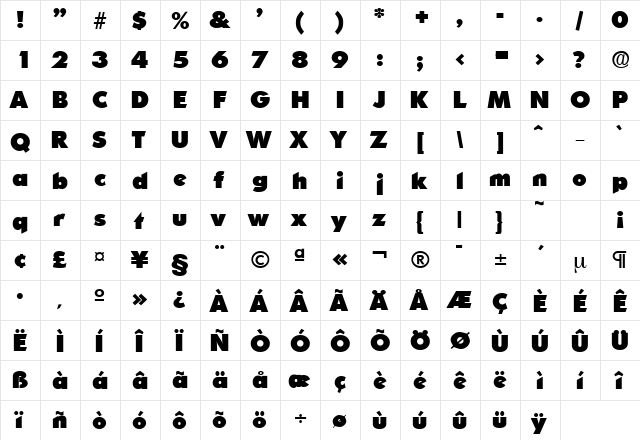
Ornitons-Serial-Heavy DB Regular
Design Context for Ornitons-Serial-Heavy DB Typeface
Ornitons-Serial-Heavy DB offers clean, dependable letterforms without strong stylistic allegiance, making it a practical choice for designers who need flexibility.